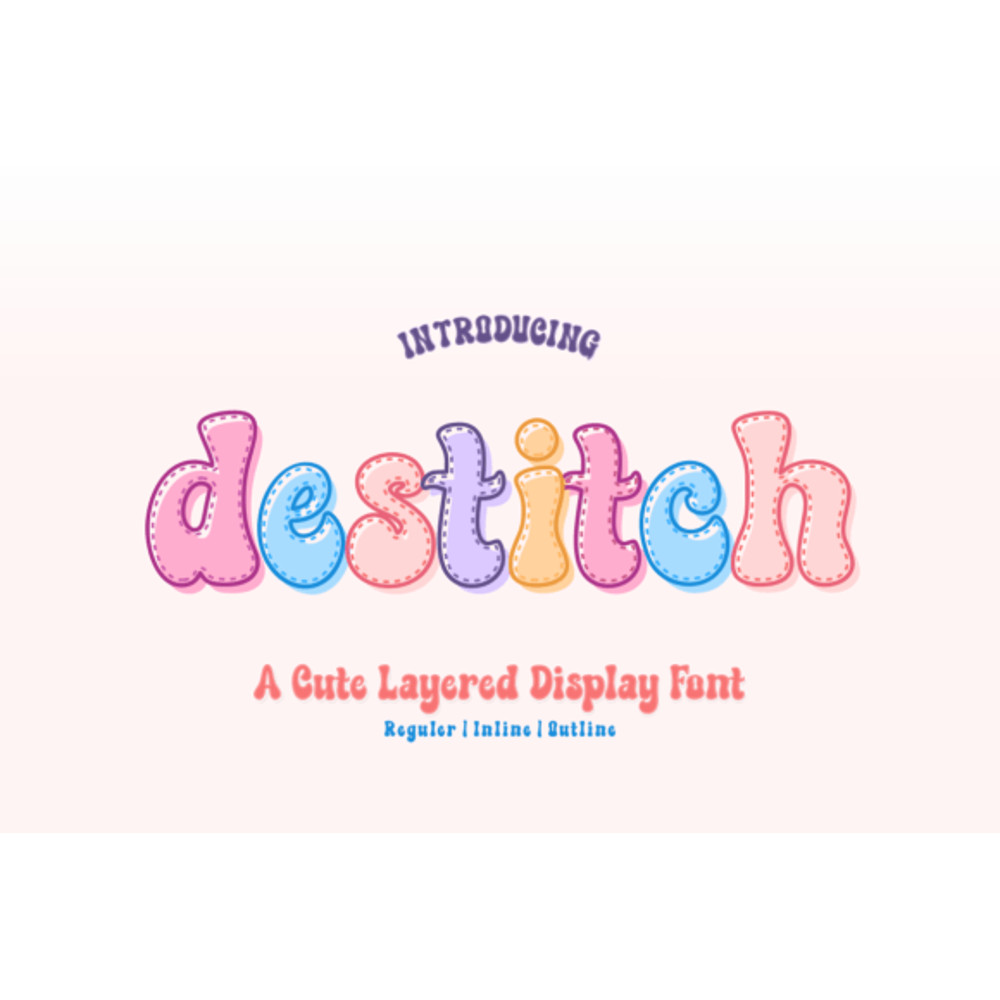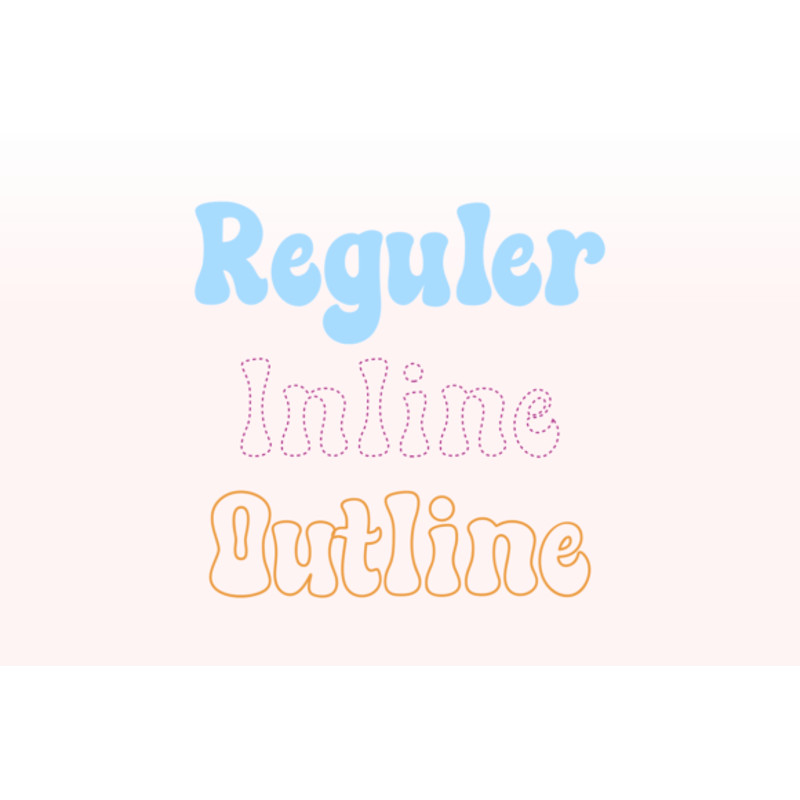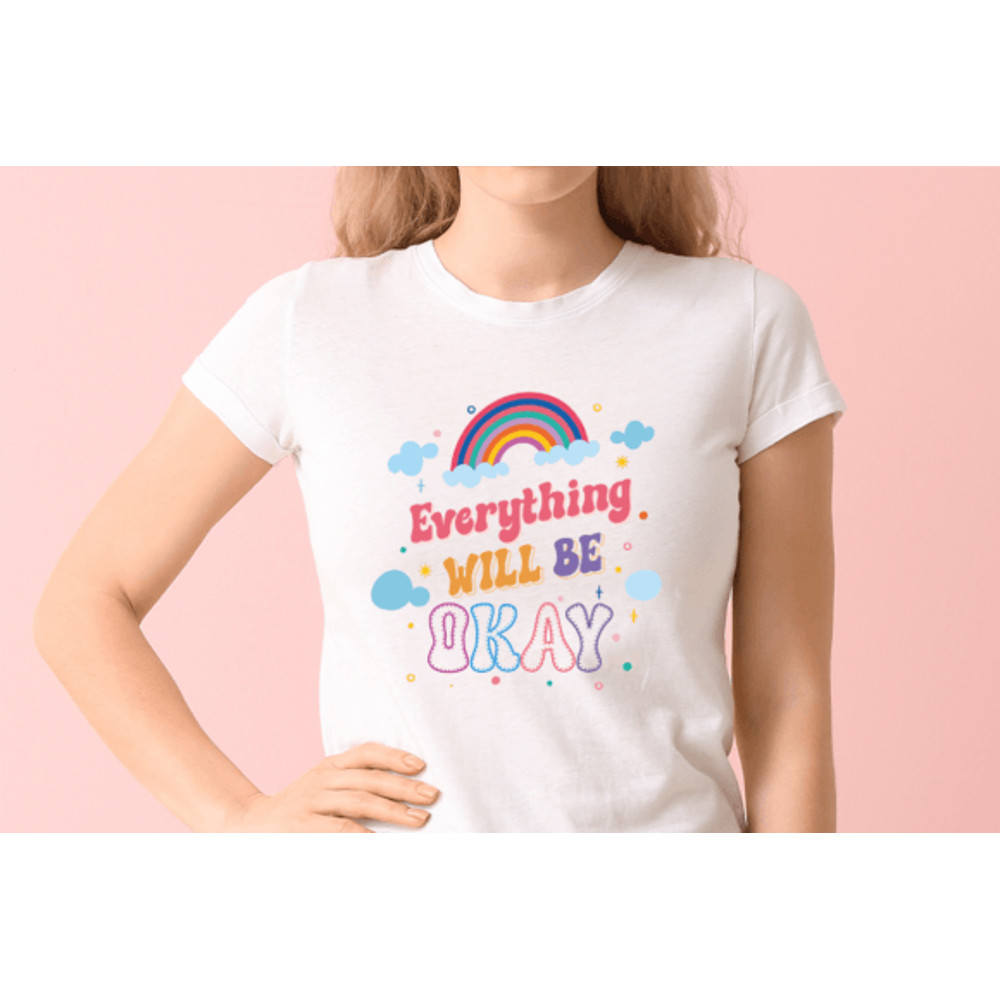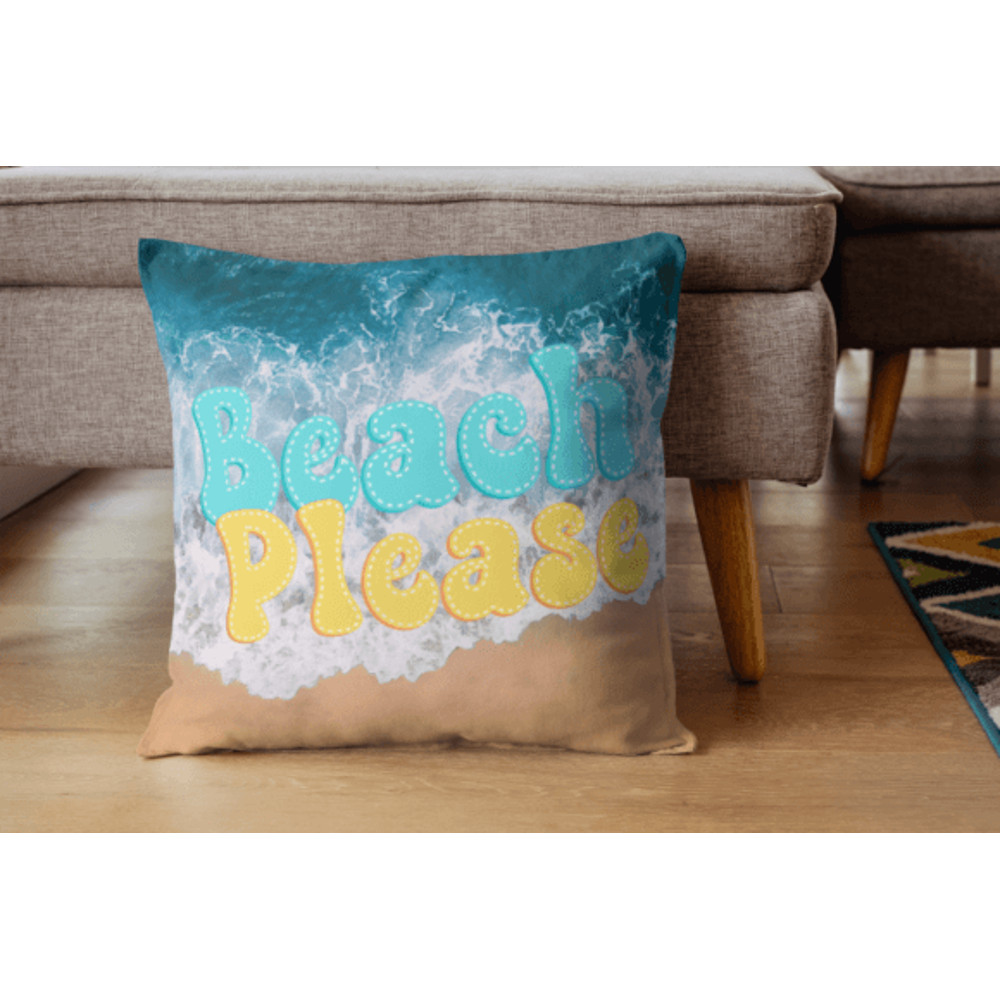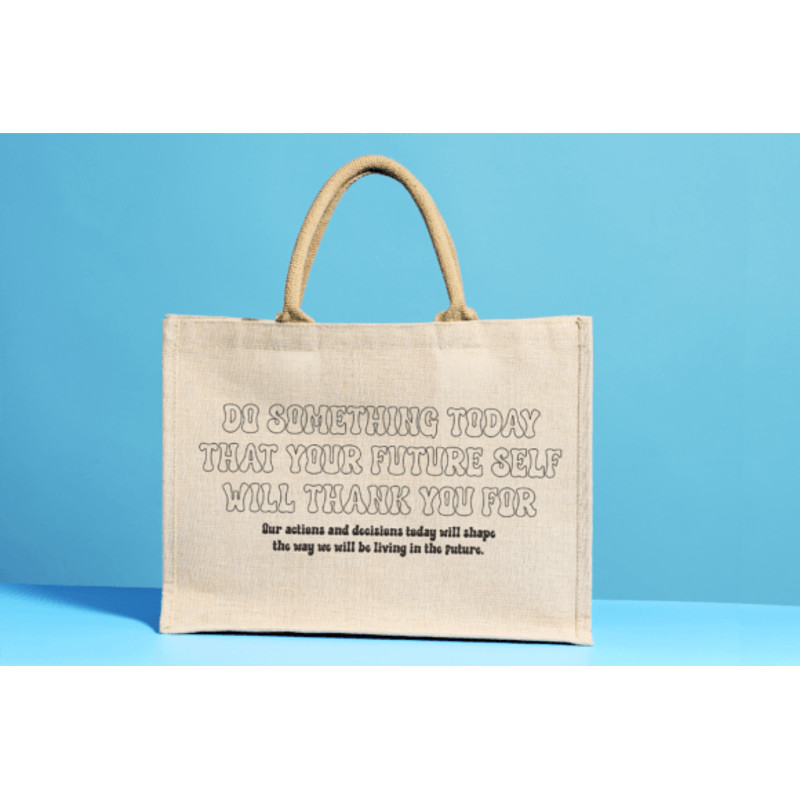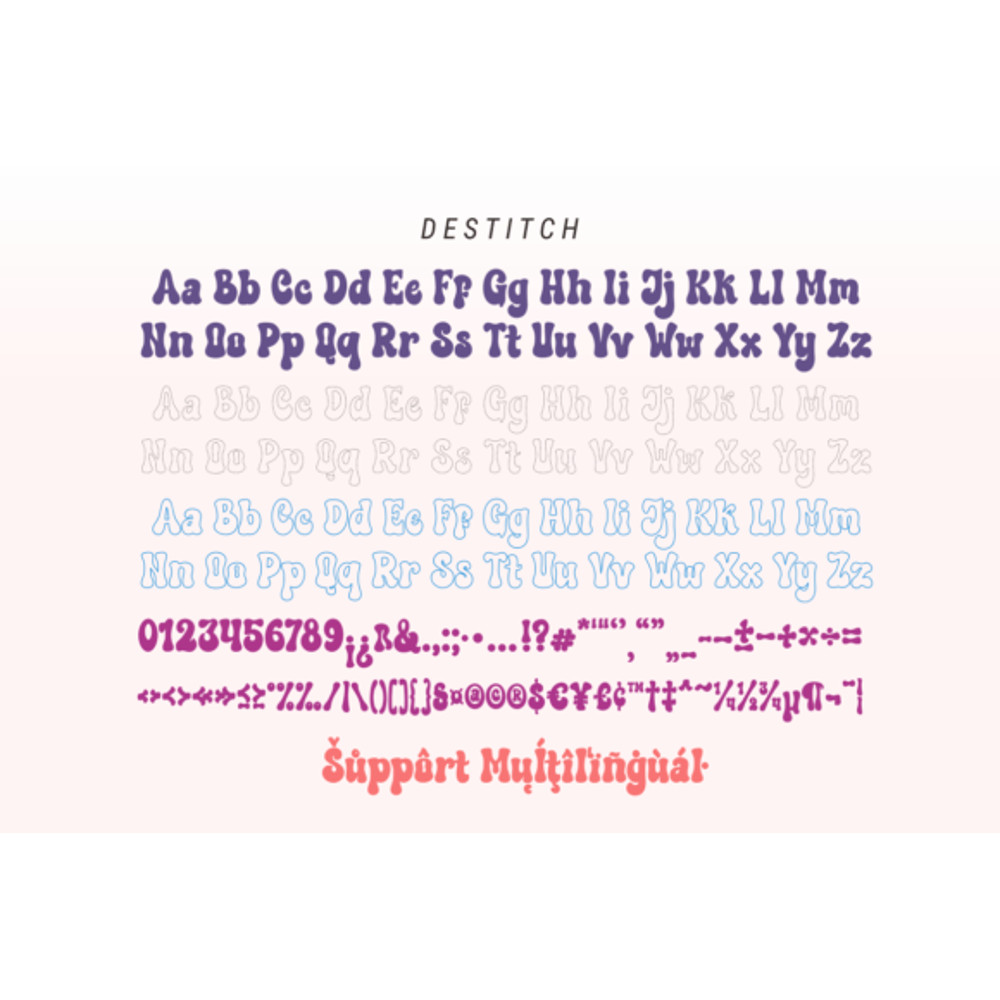
Destitch Font
Destitch is a playful display font with 3 styles (regular, inline, outline). Craft appeal, and versatility, make it an excellent choice for adding a touch of creativity and playfulness to your projects. Whether you are a hobbyist or a professional embroiderer, Destitch is sure to elevate your creations and make them stand out with their charming and fun style.